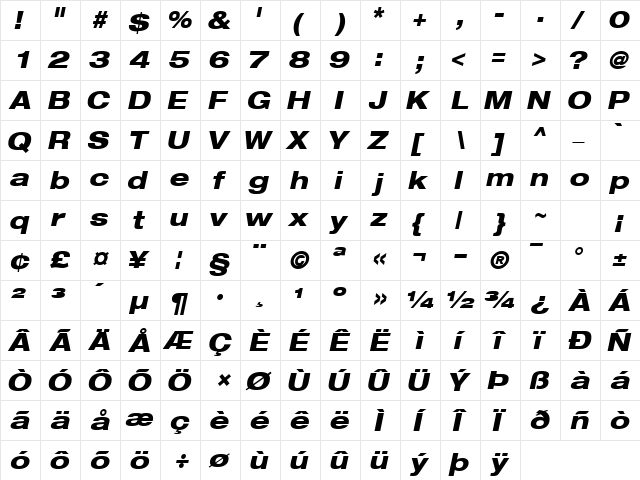
ContextRepriseBlackExpSSK Italic
Design Context for ContextRepriseBlackExpSSK Typeface
ContextRepriseBlackExpSSK takes a measured approach to typography — its balanced proportions and neutral character make it a reliable workhorse for both digital and print work. The dynamic lean of this cut emphasises speed and emphasis in any layout.
Pro Tip: Try ContextRepriseBlackExpSSK for annotation and caption copy alongside an upright companion — the contrast in angle creates a dynamic but ordered typographic system.